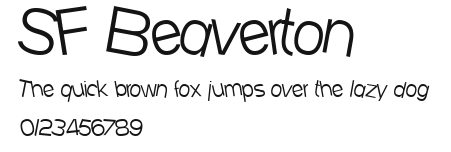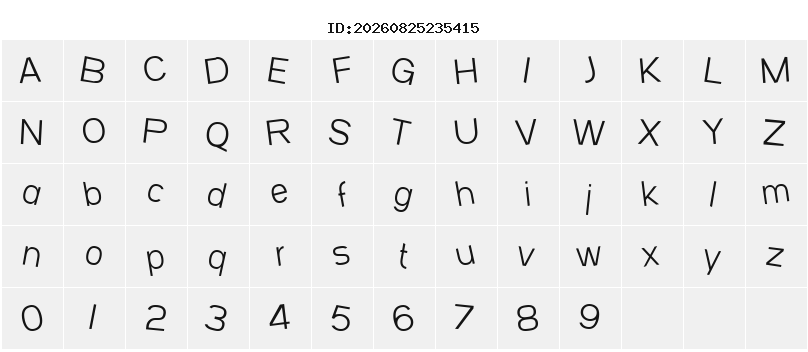
SF Beaverton Preview
• Font Name: SF Beaverton
• Font Style: Light
• Font ID: SF Beaverton Light
• Full Font Name: SF Beaverton Light
• PostScript Name: SFBeavertonLight
• Character Count: 194
About SF Beaverton.ttf
SF Beaverton.ttf is a modern, elegant sans-serif font designed for ultimate readability and visual harmony. Perfect for branding, headlines, web design, and print materials.